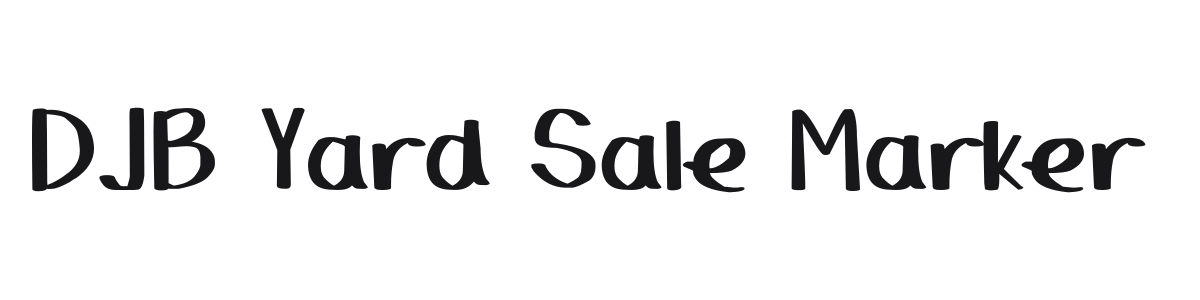
DJB Yard Sale Marker
DJB Yard Sale Marker captures the thick, slightly uneven strokes of someone pricing items with a chunky felt-tip on a Saturday morning. The letterforms are bold and casually quirky, with just enough wobble to feel authentic rather than designed. From DJB Fonts, it works well for headlines, signage, and informal layouts where a genuine hand-lettered feel matters.